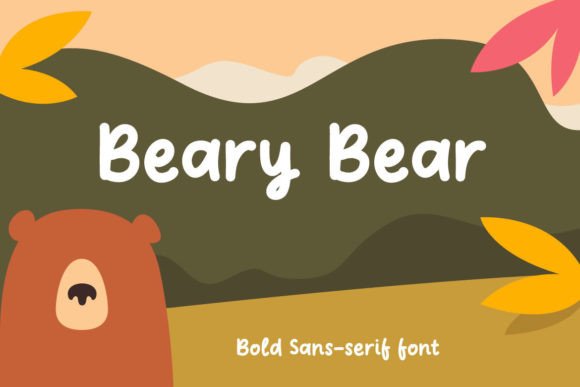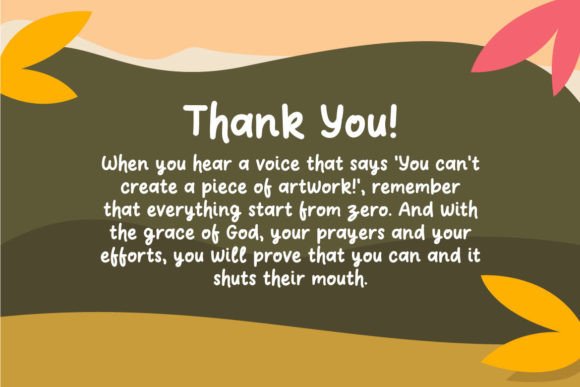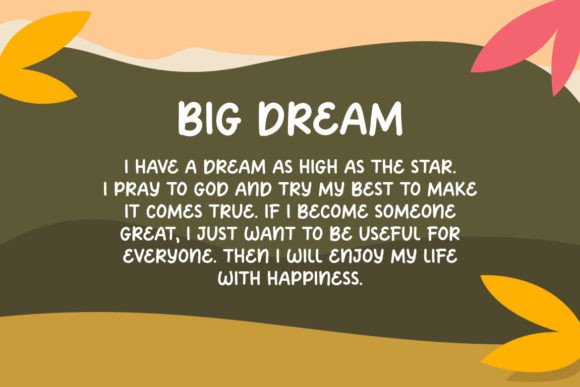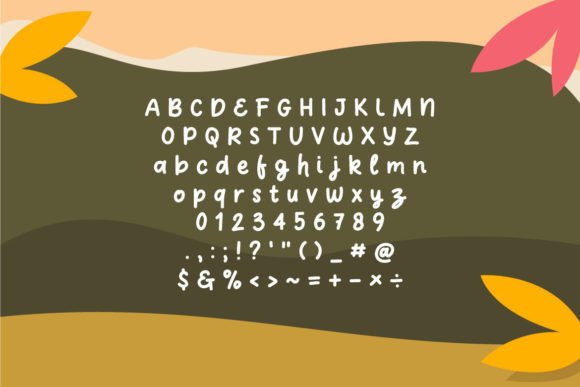
Beary Bea
About Beary Bea
Beary Bear is a cute and adorable handwritten font. No matter the topic, this font will be an incredible asset to your fonts’ library, as it has the potential to elevate any creation.